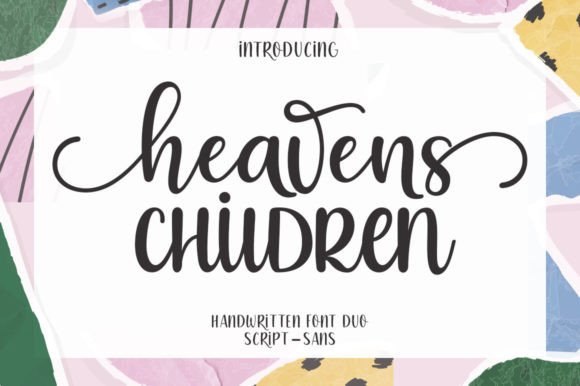
Introducing Heavens Children Duo Font, a delightful creation by Zane Studio that is set to revolutionize the way you approach font selection. If you're on the hunt for the perfect fonts to elevate your wedding designs, look no further! Heavens Children is here to add a touch of elegance and charm to your special day.
This dynamic duo font combines the best of both worlds, blending a stylish sans serif with a stunning script. With its unique and well-balanced characters, Heavens Children brings a sense of playfulness and creativity to any project it graces. Its versatility knows no bounds, making it an ideal choice for a wide range of design endeavors.
Picture your wedding invitations, save-the-date cards, and thank you notes adorned with this captivating font. The flowing script offers a romantic and whimsical touch, while the sans serif adds a modern and sleek vibe. Together, they create a harmonious symphony of typography that is sure to leave a lasting impression on your guests.
But Heavens Children isn't just limited to the world of weddings. Its versatility extends to various other creative domains. Whether you're designing logos, branding materials, social media graphics, or even personalized gifts, this font will bring your ideas to life in ways you never thought possible.
Imagine the joy and excitement that Heavens Children will bring to your designs. It has the power to transform the ordinary into the extraordinary, the mundane into the magical. Let it be the secret ingredient that sets your creations apart from the crowd.
Incorporate Heavens Children into your design arsenal today and unlock a world of endless possibilities. Don't settle for ordinary fonts when you can have extraordinary. Embrace the beauty, elegance, and boundless creativity that this duo font brings to the table. Your designs deserve nothing less.